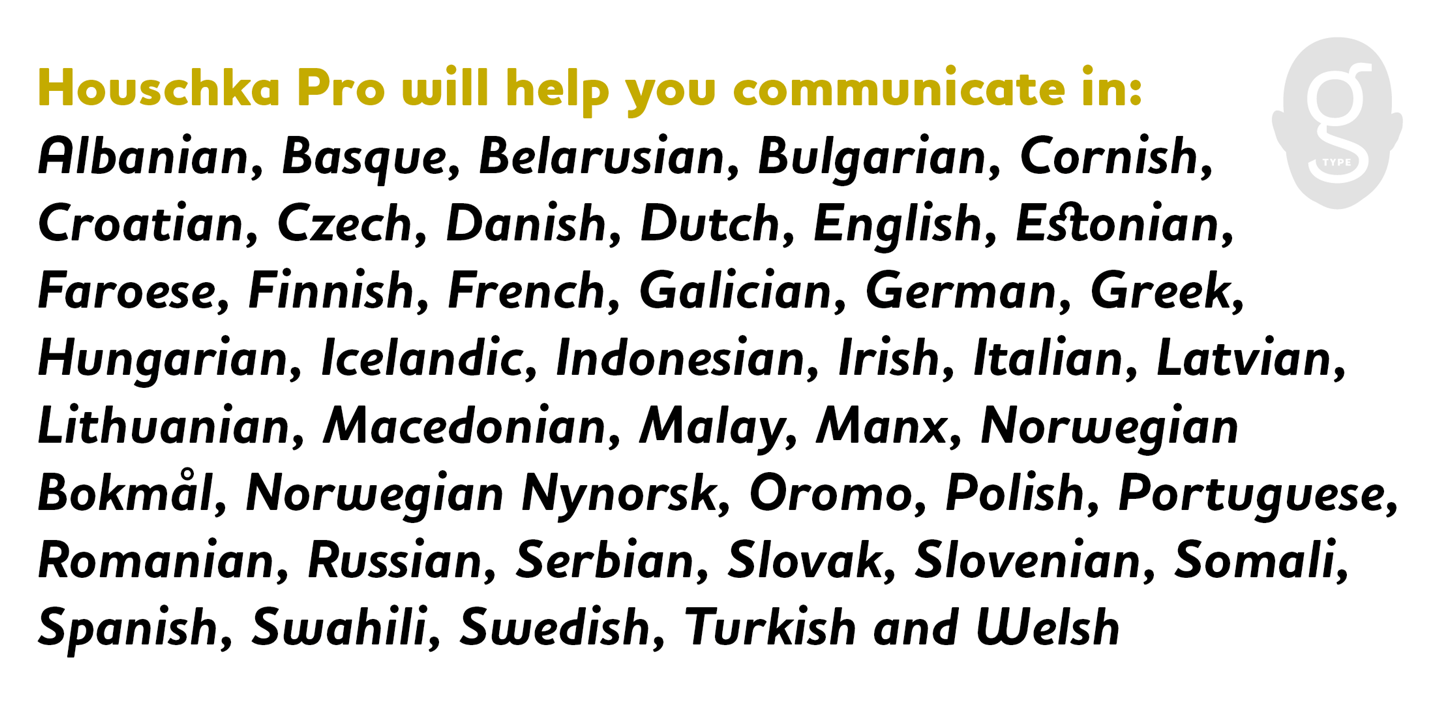
The Houschka Pro Font is excellent for versatile design projects including corporate branding systems, professional websites, annual reports, business presentations, product packaging, editorial layouts, user interface design, and contemporary marketing materials. This refined sans-serif typeface brings modern professionalism and exceptional readability to any design project requiring reliable, sophisticated typography across multiple applications.
What makes Houschka Pro Font so exciting is its perfect balance of contemporary design trends with timeless typographic principles that ensures long-lasting appeal and functional excellence. The letters feature clean, geometric foundations with subtle humanist touches that create exceptional legibility across all media formats and sizes. This distinctive versatility makes it perfect for brands and projects that want to communicate reliability, professionalism, and modern design sophistication.
The Houschka Pro Font family typically includes comprehensive weight ranges from thin to black, complete with matching italic variations and condensed options. Many versions feature extensive language support, professional OpenType features, advanced kerning, and specialized glyphs that enhance its functionality for international branding and complex typography applications.
Whether you're designing for multinational corporations, professional services, or contemporary brands, Houschka Pro Font Free Download provides the perfect solution for projects requiring dependable, high-quality typography that performs consistently across all platforms. This font transforms standard business communications into polished, professional designs that immediately communicate competence, reliability, and contemporary excellence to diverse audiences worldwide.